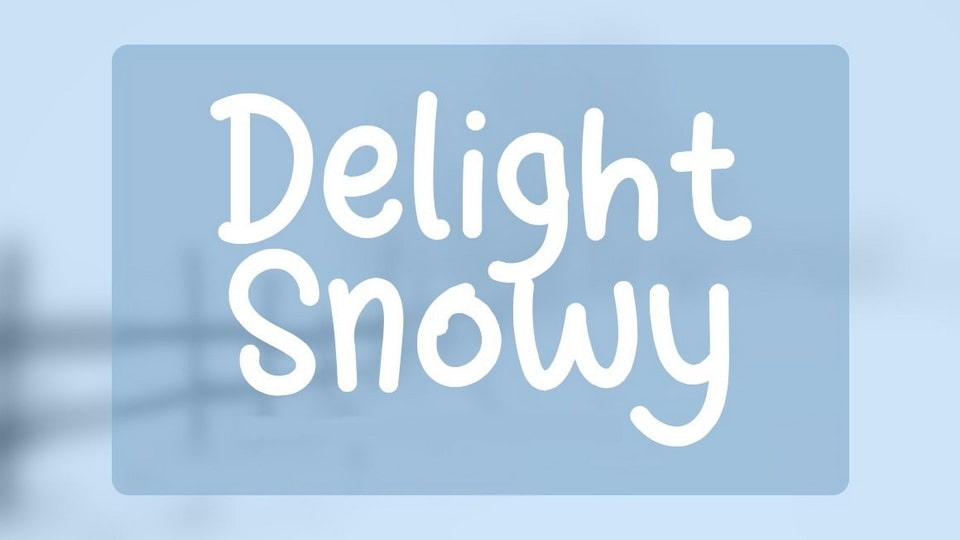
Download Delight Snow font, a simple and cute handwritten typeface. Delight Snow is perfect for posters, logos, magazines, book covers, banners, and many more.